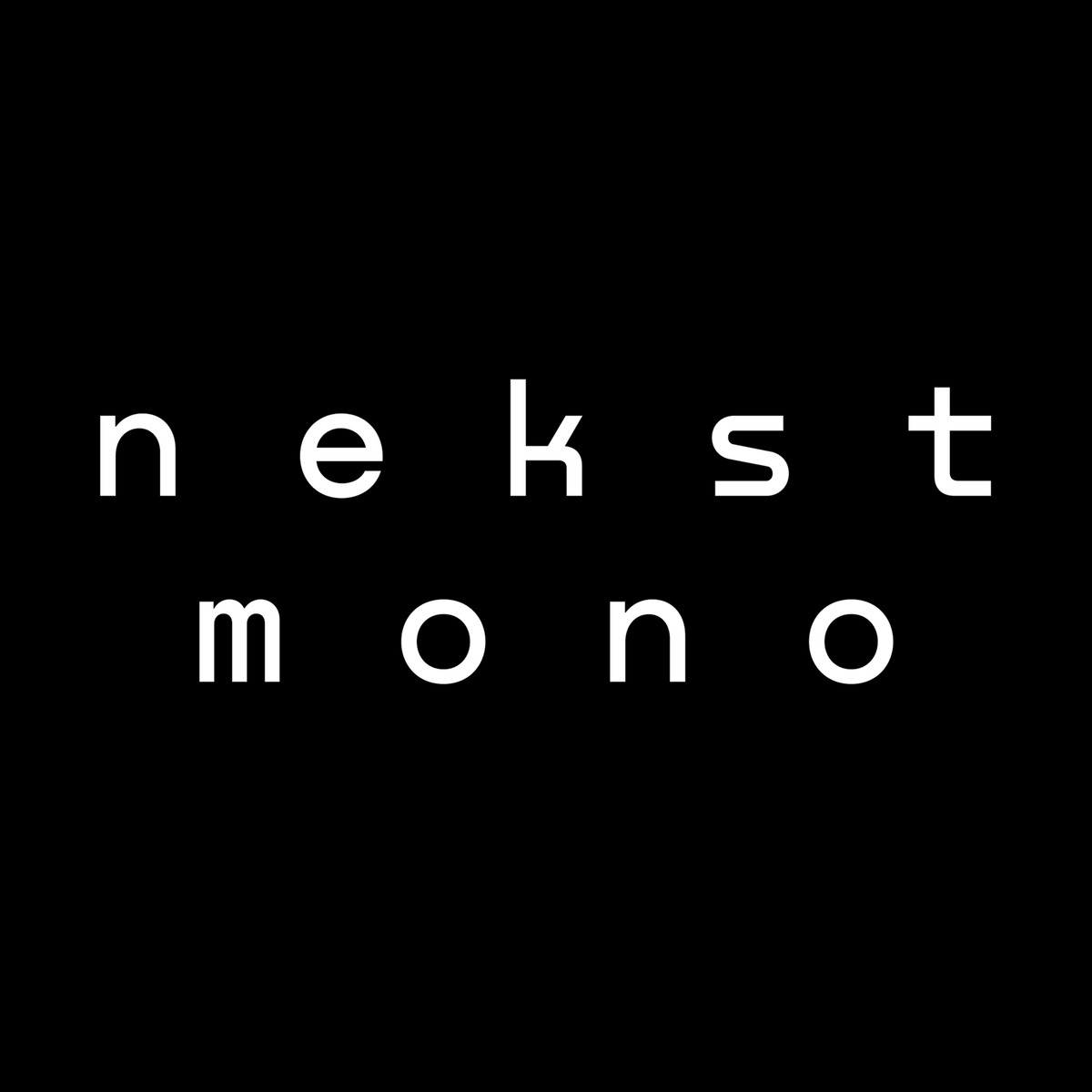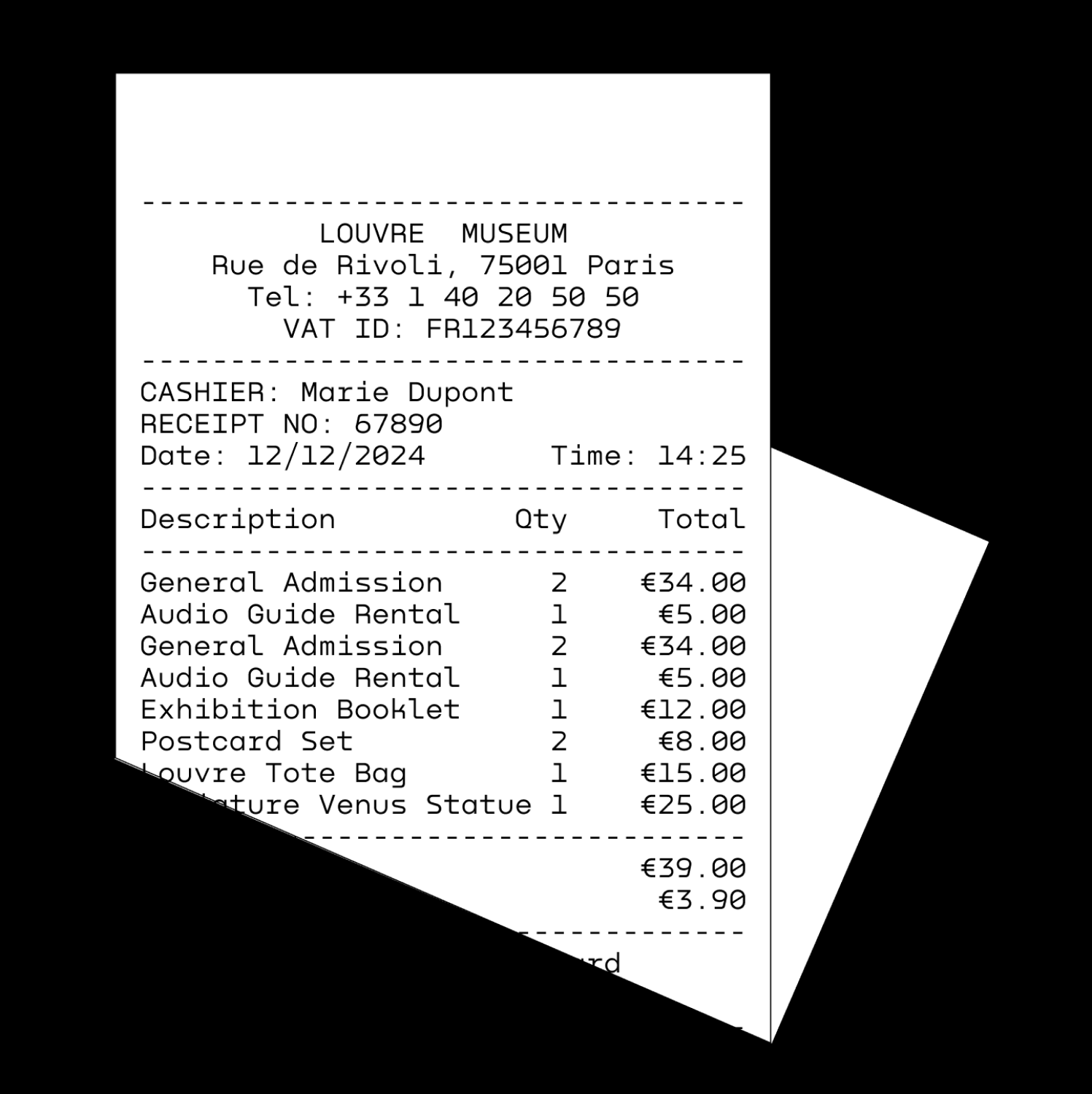
Nekst Mono inherited all the best the original Nekst could boast: a complicated, quirky personality with a slight Futuristic vibe, some hints of old-time grotesques, and seven weights ranging from Thin to Black.
Monospaced Nekst also has this OpenType feature which can be used to display blackout poetry or make believe something has been censored.
The typeface is authored by Minsk-based designer Denis Serebryakov whose work has been awarded by Granshan and Modern Cyrillic type competitions. Denis is also the author of Displace, Epos, Taler, and Gik from our library.